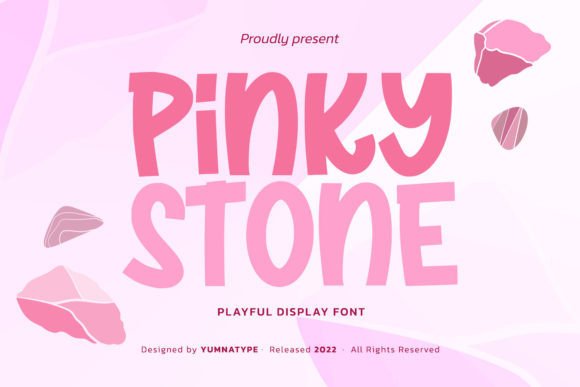
Pinky Stone Font: A Feminine and Fun Display Font
The world of typography is vast and diverse, with numerous fonts designed to cater to different needs and tastes. Among these, the Pinky Stone font stands out for its unique blend of femininity and playfulness. This display font, characterized by its thick weights and clean lines, has been making waves in the design community for its distinctive appearance and versatility. In this article, we’ll delve into the details of the Pinky Stone font, exploring its features, uses, and what makes it a popular choice among designers.
What is Pinky Stone Font?
Pinky Stone is a display font known for its thick weights and the ability to express both feminine and fun nuances simultaneously. Its design is marked by rounded shapes and low contrasts, which contribute to its soft and approachable feel. The font’s line details are clean, and it features consistent letter proportions, making it highly legible and aesthetically pleasing.
Key Features of Pinky Stone Font
- Thick Weights: The font’s thick weights give it a bold and impactful appearance, making it perfect for headlines, titles, and any text that needs to stand out.
- Feminine and Fun Nuances: Pinky Stone manages to convey a sense of femininity through its soft, rounded shapes, while its playful vibe is attributed to its clean and modern design.
- Rounded Shapes: The rounded shapes of the letters contribute to the font’s friendly and approachable feel, making it suitable for brands and projects that aim to appear soft and welcoming.
- Low Contrasts: The low contrast between the thick and thin parts of the letters ensures that the font looks cohesive and harmonious, enhancing its readability.
- Clean Line Details: The clean lines and simple details of the font ensure that it looks modern and uncluttered, making it versatile for various design applications.
- Consistent Letter Proportions: The consistent proportions of the letters ensure that the text looks balanced and visually appealing, which is crucial for readability and aesthetic appeal.
Uses of Pinky Stone Font
Pinky Stone’s unique characteristics make it suitable for a variety of design projects. Here are some of the key areas where this font can shine:
- Branding and Logos: The font’s feminine and fun nuances make it an excellent choice for brands that want to appear friendly, approachable, and modern.
- Headlines and Titles: Its thick weights and clean design make it perfect for headlines and titles that need to grab attention and make a lasting impression.
- Invitations and Cards: Pinky Stone’s playful and feminine vibe makes it ideal for invitations, greeting cards, and other personal or event-related designs.
- Packaging: For product packaging, especially for items targeting a feminine or younger audience, Pinky Stone can add a touch of elegance and playfulness.
- Digital Media: On websites, social media posts, and digital advertisements, Pinky Stone can help brands stand out and connect with their audience in a more personal and engaging way.
Why Choose Pinky Stone Font?
With so many fonts available, why should designers choose Pinky Stone? Here are a few compelling reasons:
- Uniqueness: Pinky Stone offers a unique blend of femininity and playfulness that is hard to find in other fonts, making it a great choice for designers looking for something distinctive.
- Versatility: Despite its specific design characteristics, Pinky Stone is surprisingly versatile and can be used in a wide range of projects, from digital media to print materials.
- Readability: The font’s clean design and consistent letter proportions ensure that it remains highly legible, even at smaller sizes or from a distance.
- Aesthetic Appeal: Pinky Stone’s soft, rounded shapes and modern design make it aesthetically pleasing, adding a touch of elegance and playfulness to any design.
How to Use Pinky Stone Font Effectively
To make the most of Pinky Stone, consider the following tips:
- Pair with Complementary Fonts: When using Pinky Stone alongside other fonts, choose fonts that complement its playful and feminine characteristics. A good combination could be with a sans-serif font for body text to maintain readability and contrast.
- Consider the Color Scheme: Pinky Stone works well with a variety of color schemes, but it’s particularly striking when paired with pastel colors, soft neutrals, or bold and bright hues that enhance its playful vibe.
- Use for Emphasis: Given its bold and attention-grabbing nature, use Pinky Stone for elements you want to stand out, such as headlines, while a more neutral font can be used for the body text.
- Experiment with Sizes: Don’t be afraid to experiment with different sizes to create visual hierarchy and emphasis in your design.
Pinky Stone font is a unique and versatile typeface that brings a blend of femininity, playfulness, and modernity to any design project. Its thick weights, clean lines, and rounded shapes make it not only aesthetically pleasing but also highly legible and effective for a variety of applications. Whether you’re working on branding, packaging, digital media, or any other project, Pinky Stone is sure to make a statement. By understanding its features and using it thoughtfully, designers can create visually stunning and impactful designs that resonate with their audience.